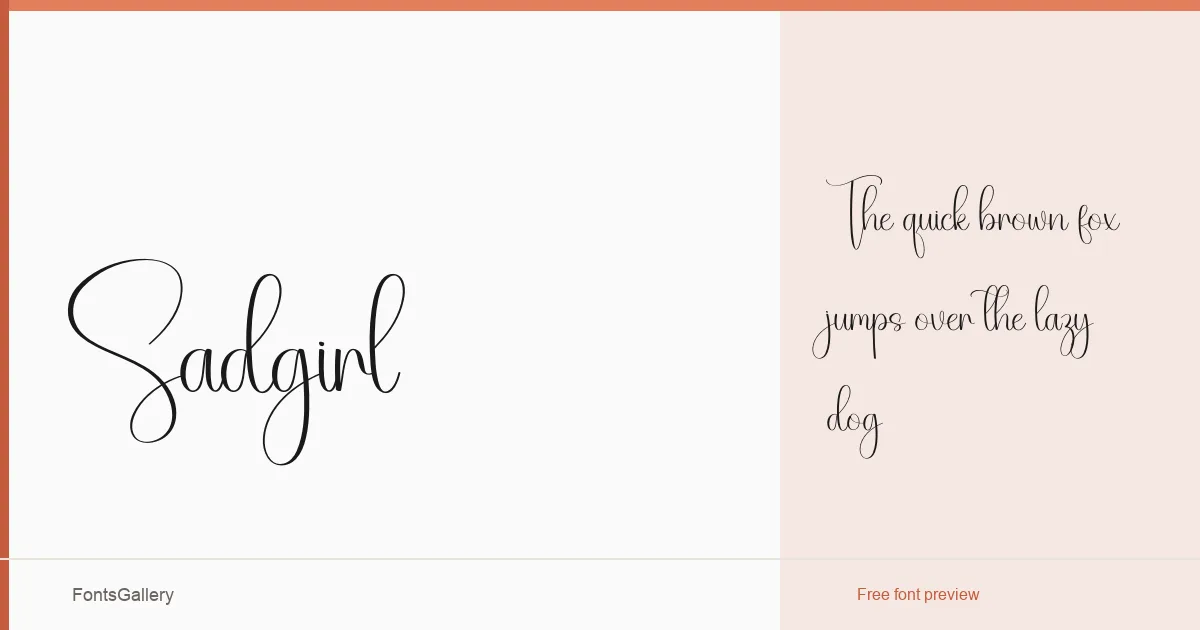
About Sadgirl Font
Sadgirl is a script typeface from Scratchones Creative that blends elegance with a whimsical, romantic sensibility. Its flowing letterforms evoke a classic charm that feels both timeless and full of personality. This font brings a graceful, emotive quality to any design project it graces.
As a script typeface, Sadgirl features fluid, hand-crafted strokes that carry an elegant and romantic character throughout each letterform. The whimsical touches in its curves and flourishes lend it a dreamy, classic quality reminiscent of traditional calligraphy with a modern spirit. Its expressive style strikes a careful balance between refined sophistication and playful charm.
Sadgirl is ideally suited for logos, branding, wedding materials, invitation cards, and greeting cards where a romantic and elegant tone is desired. Its expressive script personality makes it a natural choice for luxury or lifestyle brands seeking a distinctive, heartfelt visual voice. For a compelling typographic contrast, consider pairing Sadgirl with Aresink or Helvetica to balance its flowing character with clean, structured letterforms.